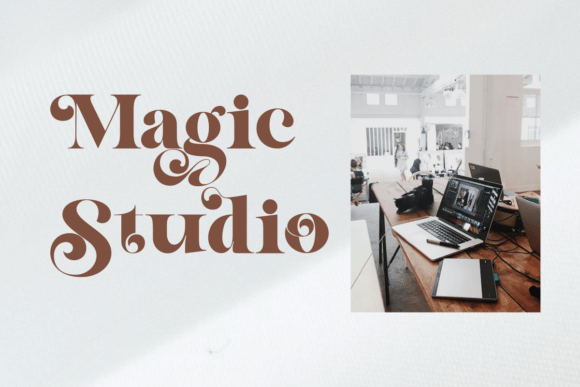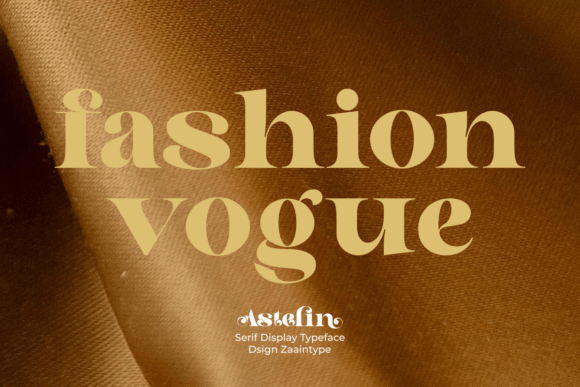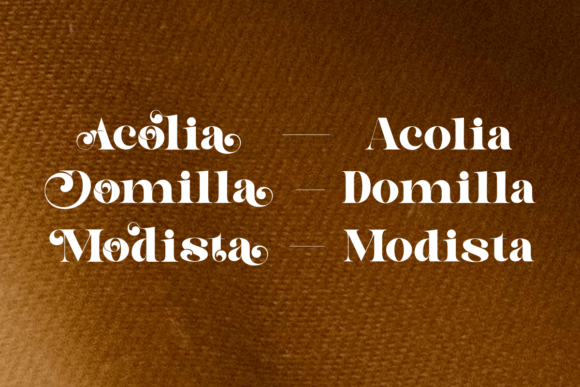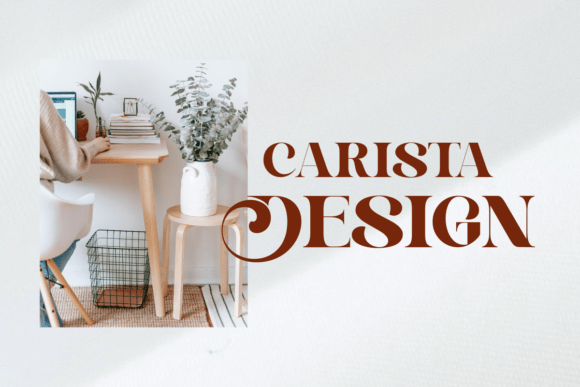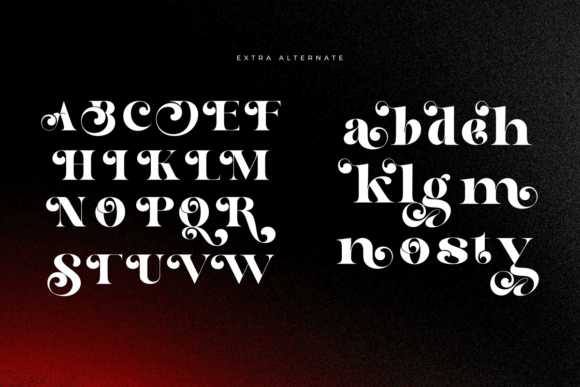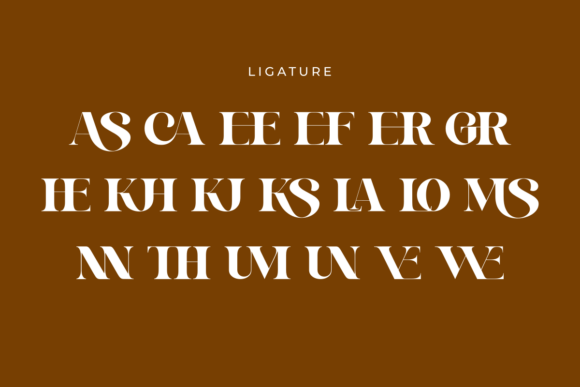
Introduction to Astelin Font
Astelin is a display serif font that blends classic elegance with bold, captivating character.
Available in two styles — Regular and Oblique — Astelin is designed to command attention in headlines, logos, or premium packaging Perfect for editorial projects, luxury branding, and designs that demand a touch of refined boldness.
Key Features of Astelin Font